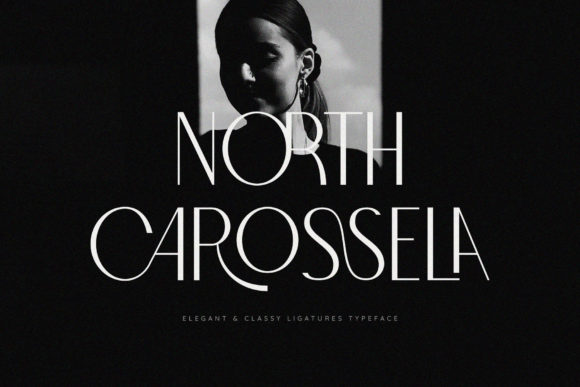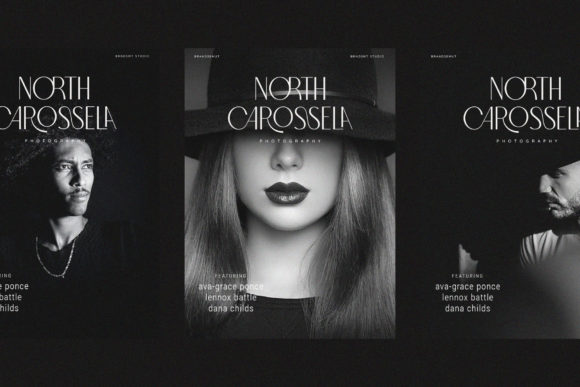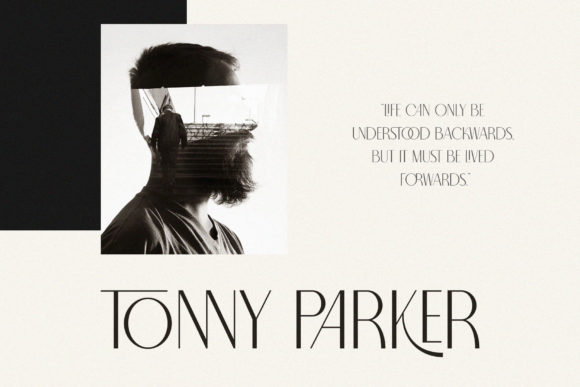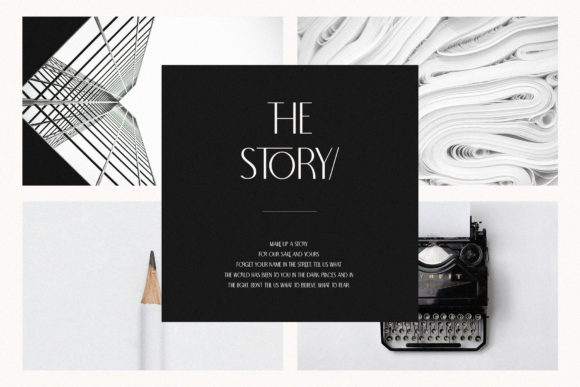
North Carossela Font
About the North Carossela Font
The North Carossela Font is here to transform your projects with its distinctive character and style. North Carossela is an incredibly unique yet simple and elegant sans serif font. Suitable to a wide variety of designs due to its simple style, North Carossela has the potential to become your favorite go-to font, no matter the occasion!
North Carossela excels in headlines, logos, and short-form text within branding materials and posters. Its elegant simplicity makes it ideal for sophisticated projects requiring a clean, modern aesthetic. However, its limited character set and x-height make it less suitable for body copy or lengthy paragraphs, as well as UI elements requiring high readability.
The font’s personality is best described as refined and modern, conveying a sense of understated elegance. This makes it a strong choice for brands aiming for a sophisticated image, such as high-end fashion, luxury goods, or minimalist design firms.
Pairing North Carossela with a classic serif like Garamond for body text provides a pleasing contrast in style, while a geometric sans-serif like Futura can create a more contemporary and balanced feel. For a more playful touch, consider pairing it with a script font like Allura, but use it sparingly as a supplementary element.
North Carossela Font Usage Examples
North Carossela Font Example